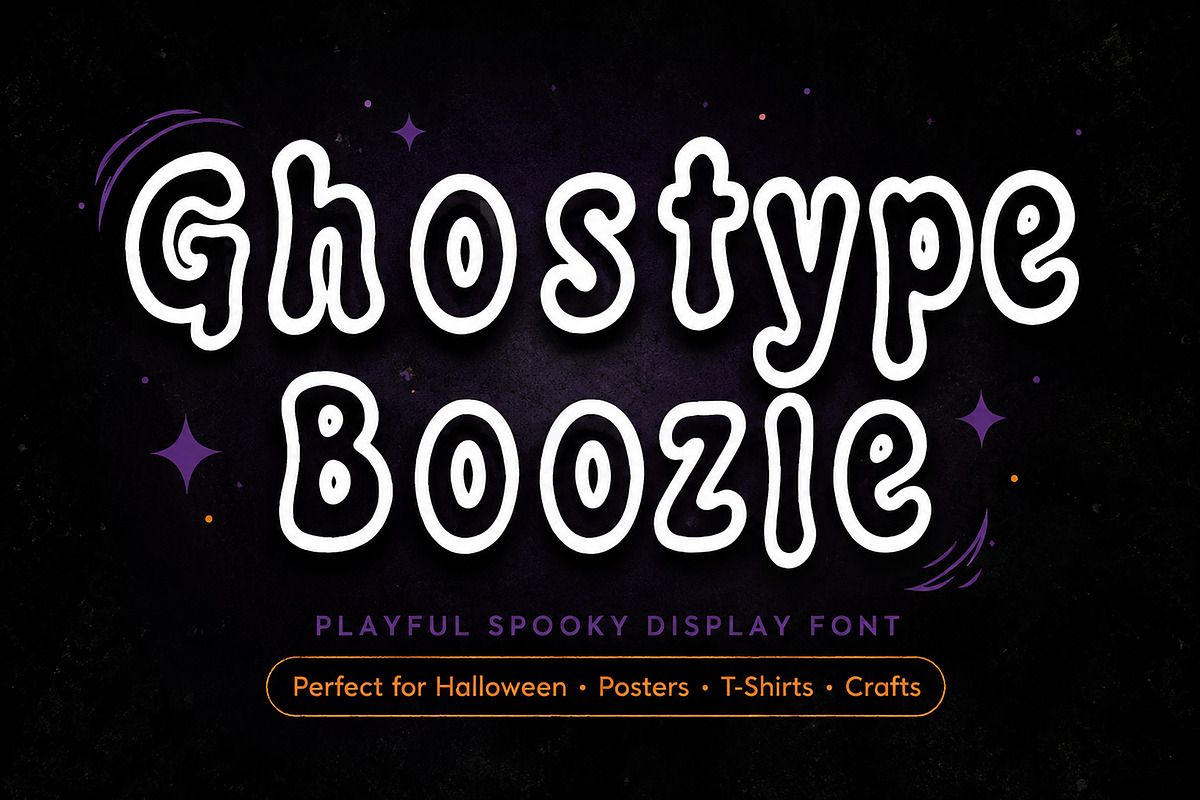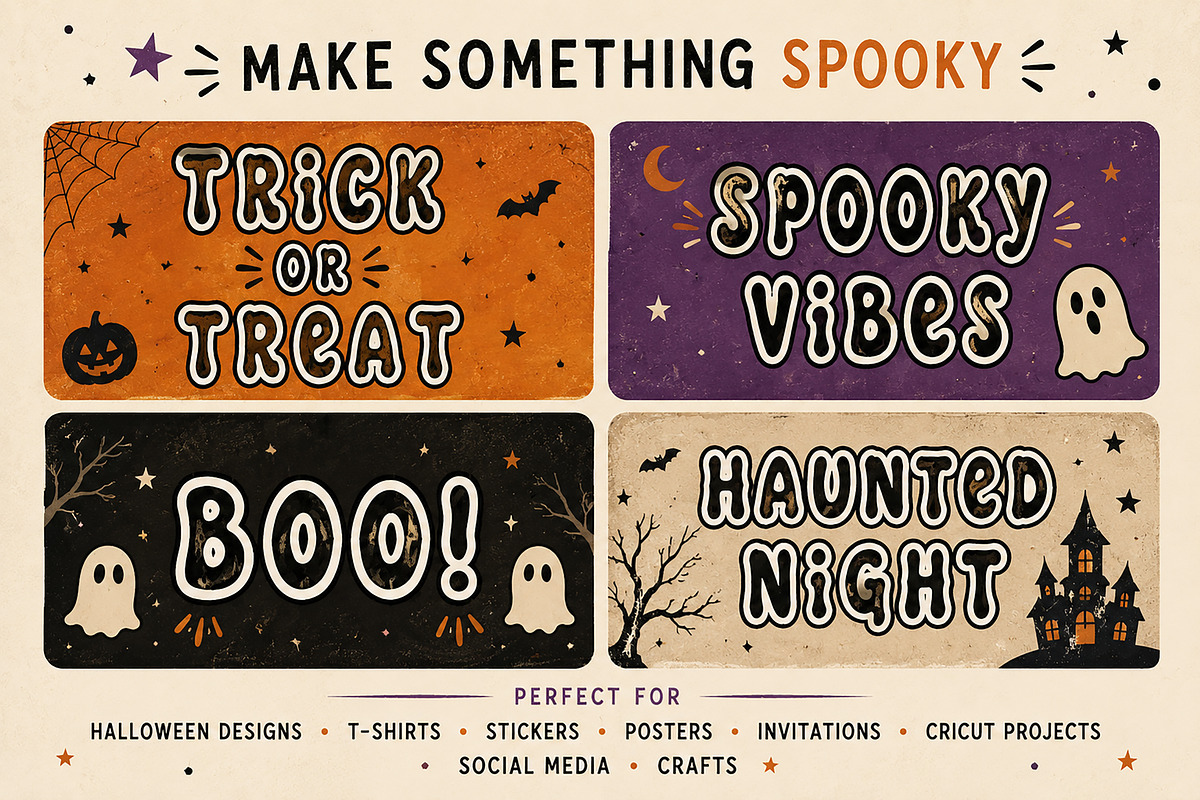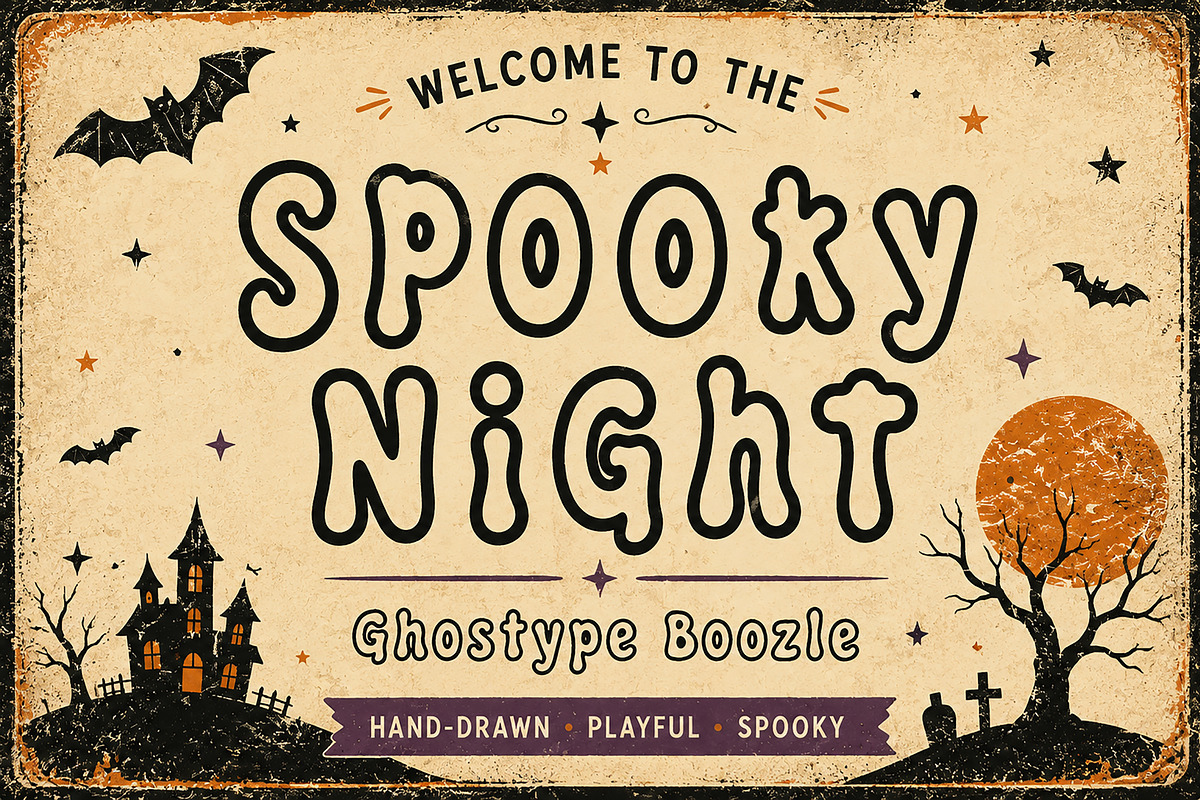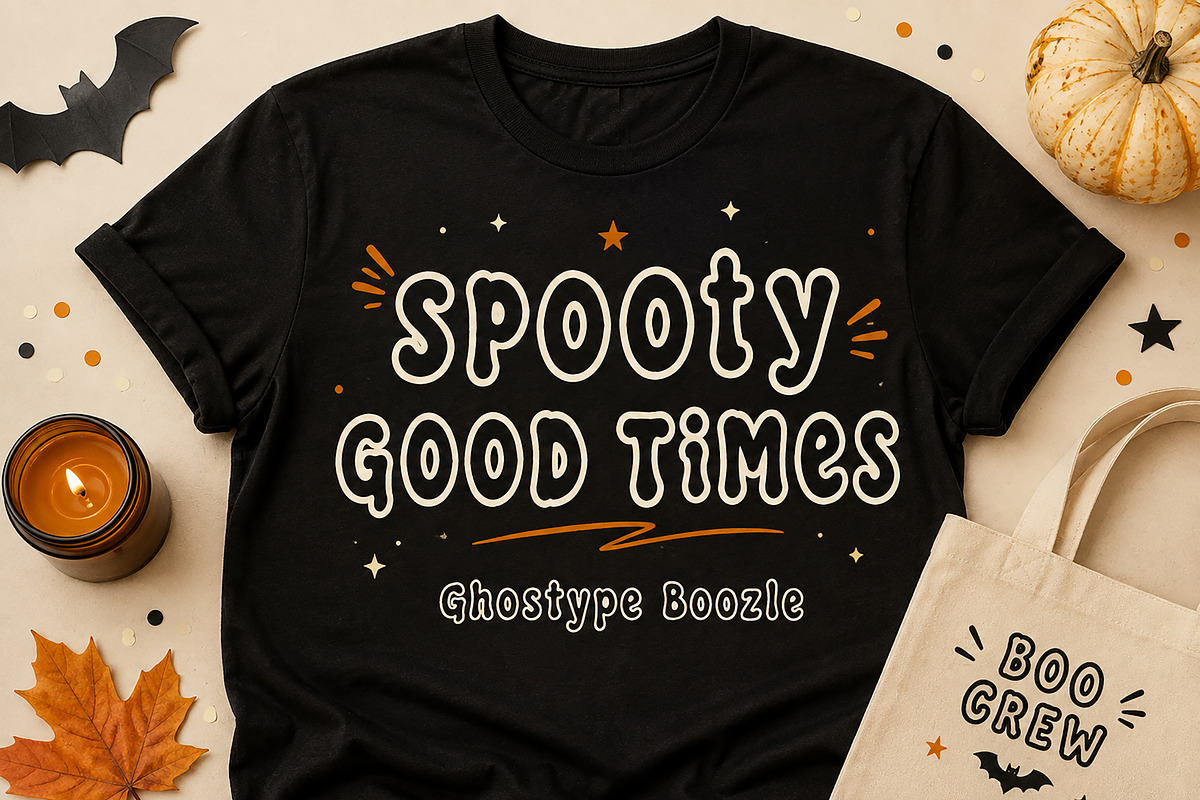
Ghostype Boozle
Ghostype Boozle is a playful and spooky hand-drawn display font designed to bring a fun Halloween vibe to your creative projects. With its rounded, bubbly, quirky letterforms and charming irregular shapes, this typeface delivers a unique combination of cute, creepy, retro, and playful aesthetics.
Perfect for Halloween-themed designs, Ghostype Boozle works beautifully for T-shirts, posters, stickers, invitations, greeting cards, party decorations, social media graphics, wall art, packaging, crafts, and printable designs.
Its bold and distinctive appearance helps headlines and short phrases stand out while maintaining a friendly, fun personality. Whether you're creating something spooky for Halloween or simply want a quirky hand-drawn look, Ghostype Boozle adds instant character to your typography.
Halloween Designs
T-Shirt Designs
Posters & Wall Art
Stickers
Invitations
Greeting Cards
Party Decorations
Cricut & Craft Projects
Printables
Packaging & Labels
Children's & Fun-Themed Designs
Seasonal Branding
Style: Playful • Spooky • Hand-Drawn • Bubbly • Quirky Display Font
Bring your spooky ideas to life with Ghostype Boozle!